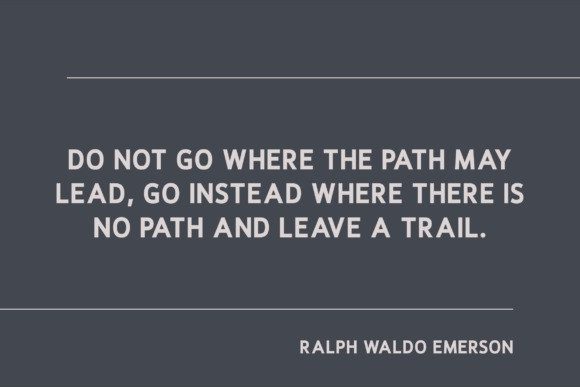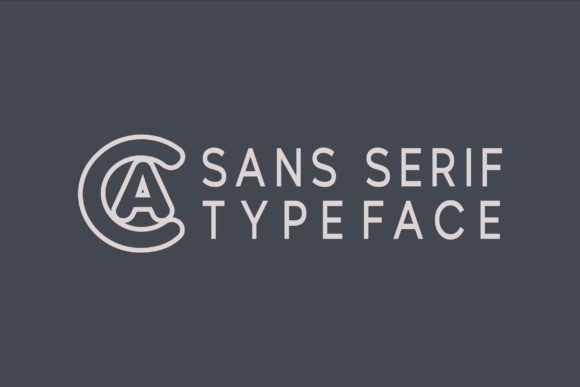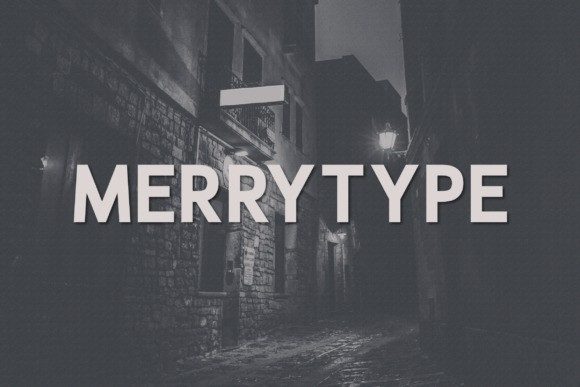
Merrytype Font
Merrytype Font is a clean and confident sans-serif font that blends geometric precision with a warm, modern charm.With its uniform stroke weight and well-proportioned characters, Merrytype is crafted for clarity, balance, and versatility. It features uppercase letters, numerals, and full punctuation support—perfect for everything from branding and advertising to editorial headlines and digital interfaces.
The font’s subtle friendliness makes it ideal for contemporary design projects that aim to communicate professionalism without feeling cold.
Whether you’re designing a sleek logo, a stylish product label, or an elegant website layout, Merrytype brings sophistication and structure to your work. Its straightforward design ensures it pairs beautifully with other fonts or stands out on its own in minimalist compositions.